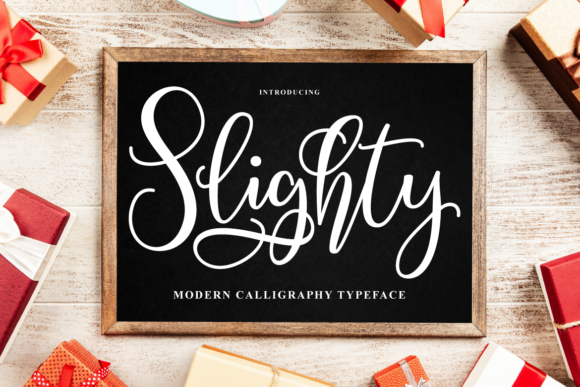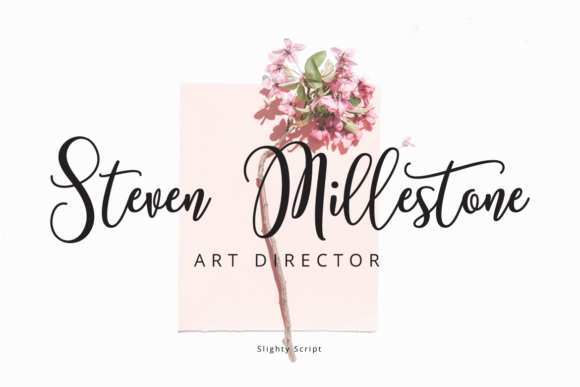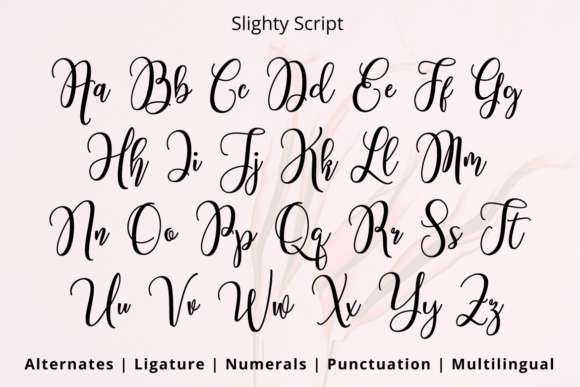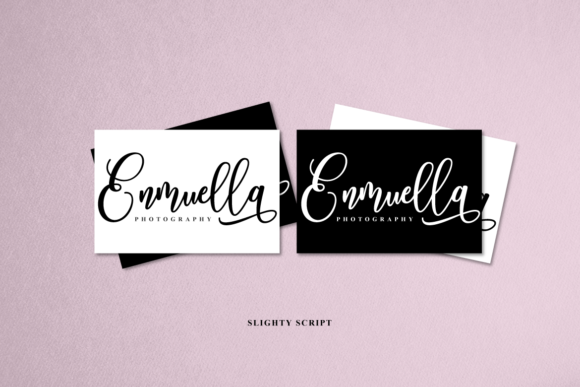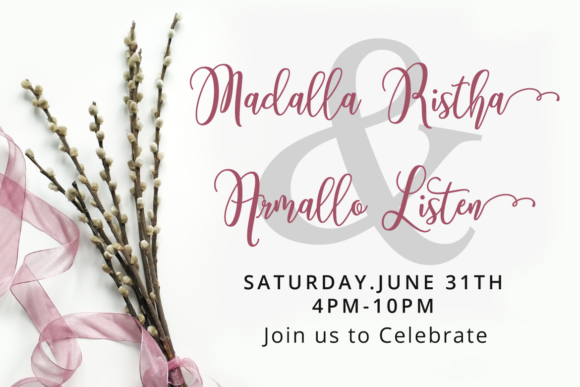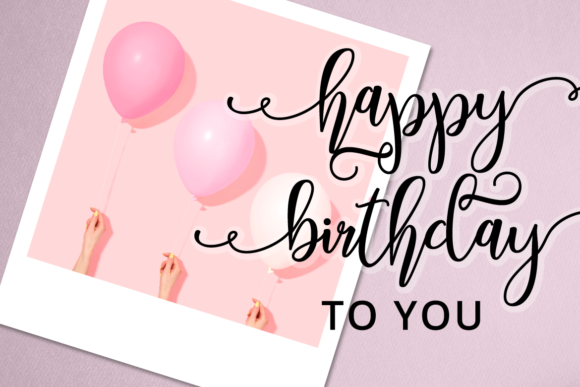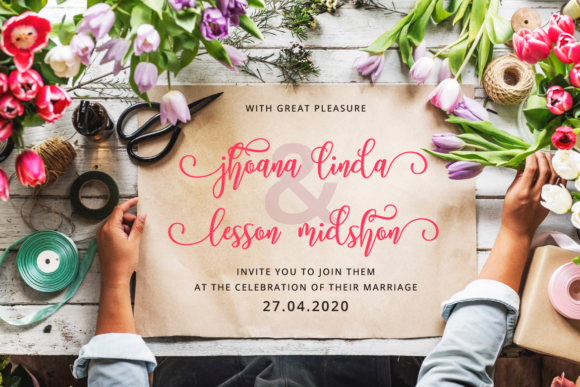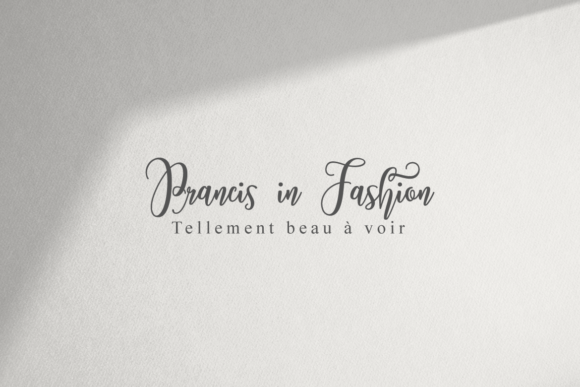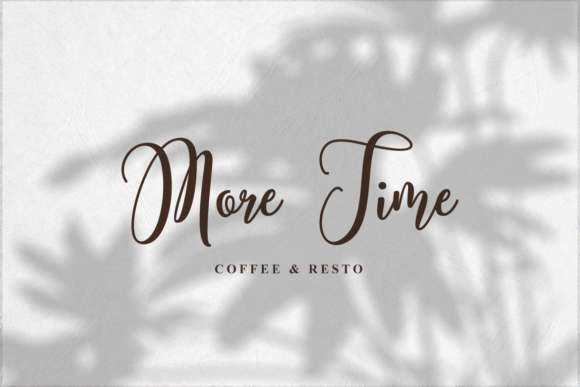
Slighty Font
About Slighty Font
Slighty is a modern script font carefully created with a touch of elegance. This font is PUA encoded which means you can access all of the amazing glyphs and swashes with ease!